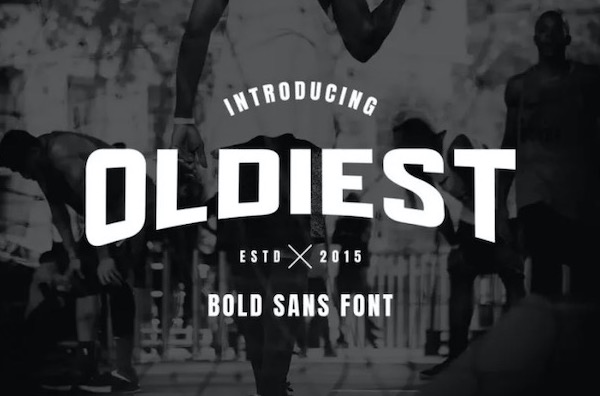
Oldiest is a modern classy Condensed sans serif Font with a familiar bold look. Oldiest font will make your projects more powerful & beautiful. It’s suitable for any design like branding, quotes and etc. I hope you enjoy it !! Thanks for visiting and downloading my font!
Oldiest Sans Serif Font